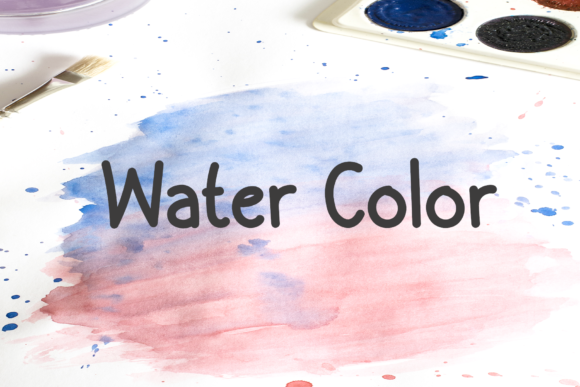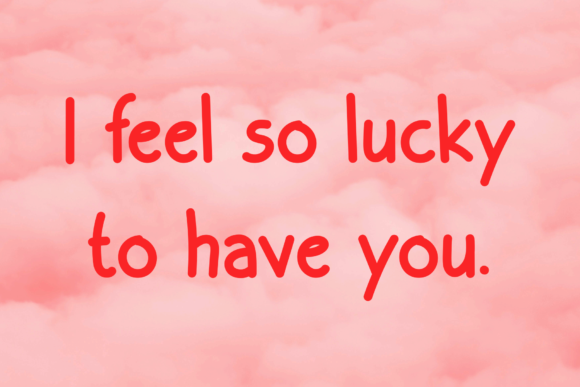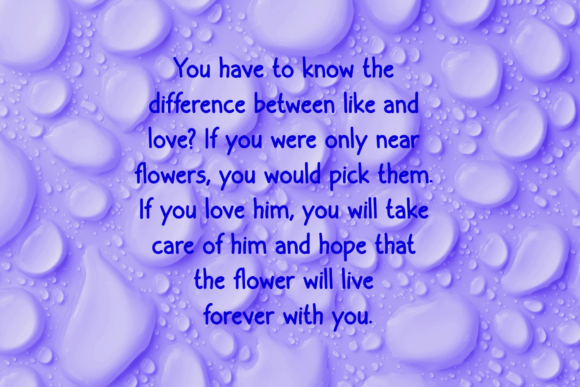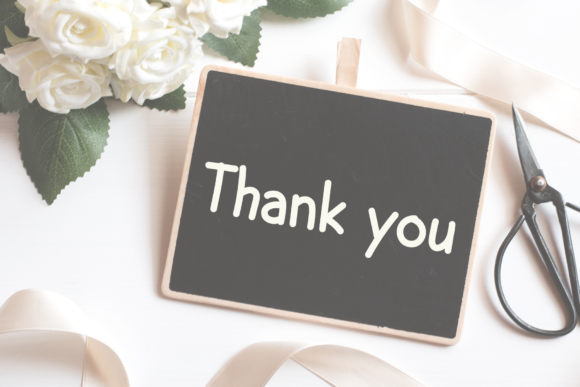
Charlie Font
About Charlie Font
Charlie is a flowing, sweet and simple handwritten font. Its distinct neat letters make this font a perfect choice, no matter the topic of your project.